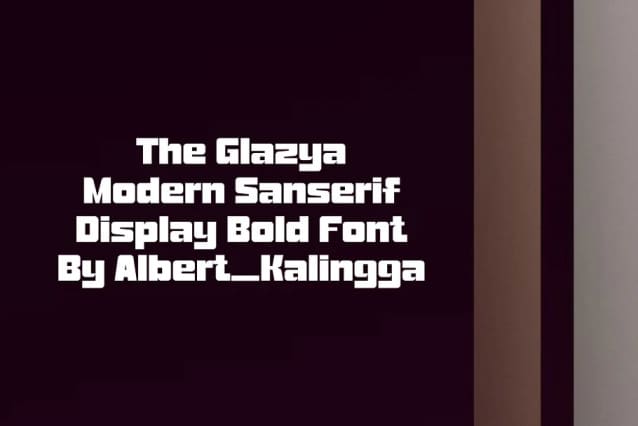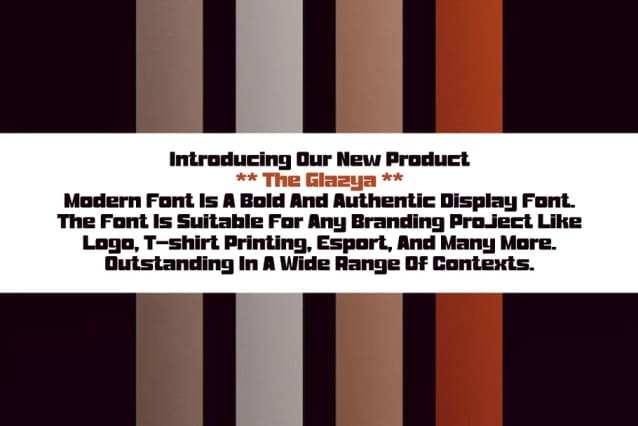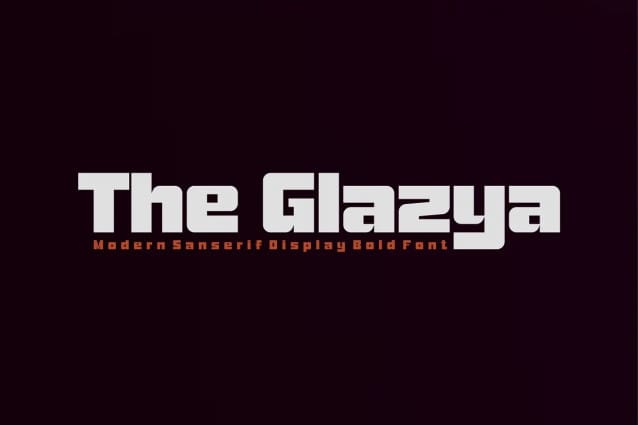
The Glazya Font
The Glazya Font – Modern Font is a bold and authentic display font. The font is suitable for any branding project like logo, esport, and many more. outstanding in a wide range of contexts.